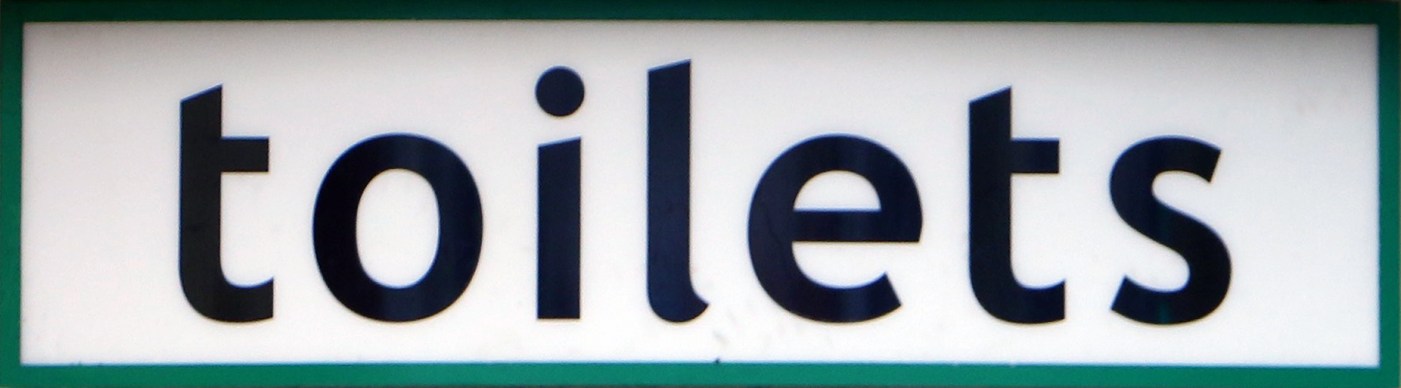
Similar to Trebuchet, what is it?
I’m struggling to identity this typeface, it is used for the public convenience in central Hastings, I'm intrigued as it is so similar to Trebuchet.
It looks somewhat familiar, but I wasn’t able to find an exact match. The most striking feature is the “cross-less” |t|, also featured, for example, in Ubuntu. But none of the similar typefaces I found have sloped |i|, and very few have a sloped top of |l| (and none has such a shy bottom curve).
In conclusion, looking also at the rest of the letters, I would say that this is indeed Trebuchet or, rather, a not terrible customisation of it, with a chopped |t| and an |i| modelled after the ascenders.
I can’t say if such thing is available somewhere, or if it was specially made by or for the signmaker.